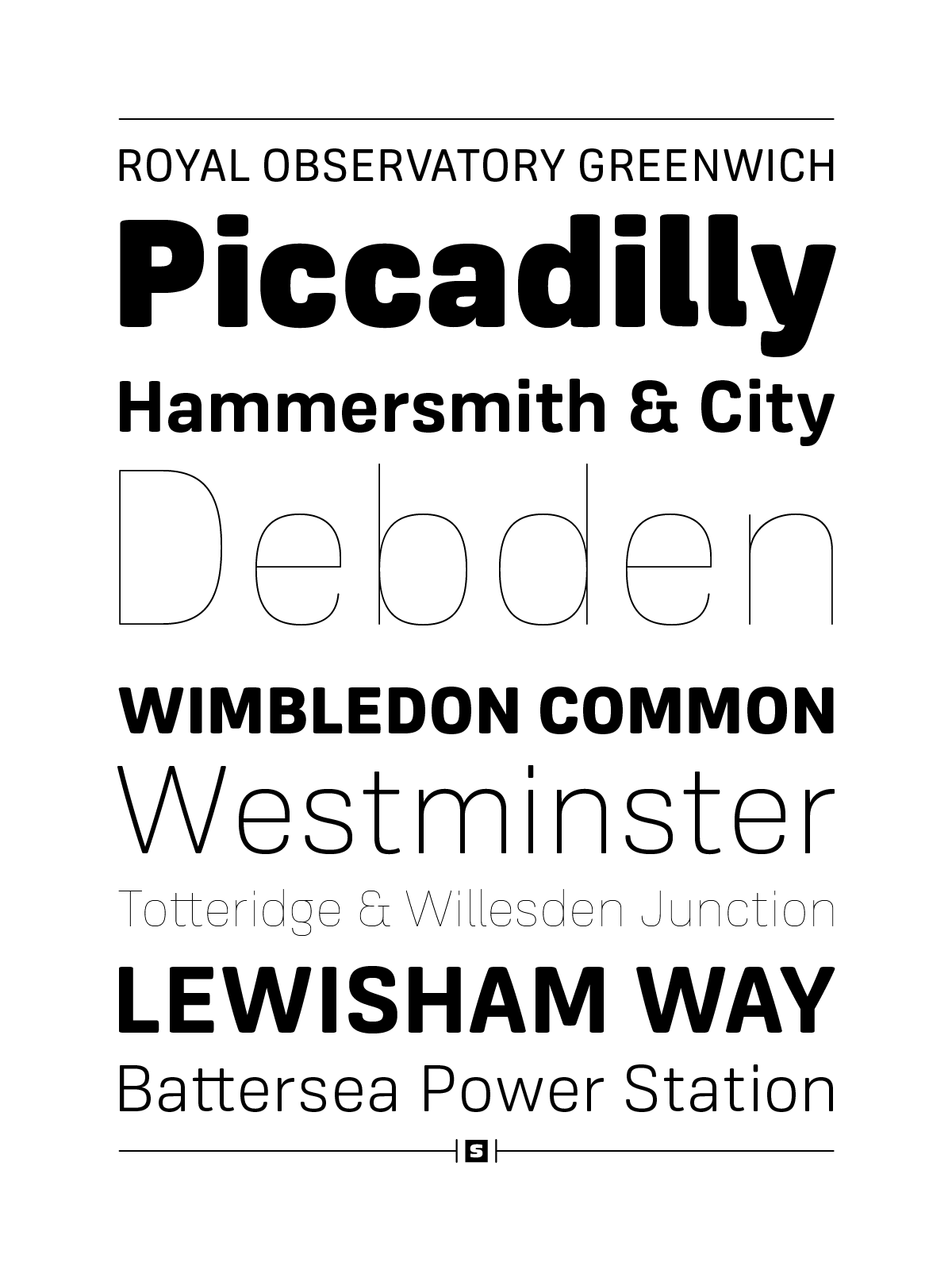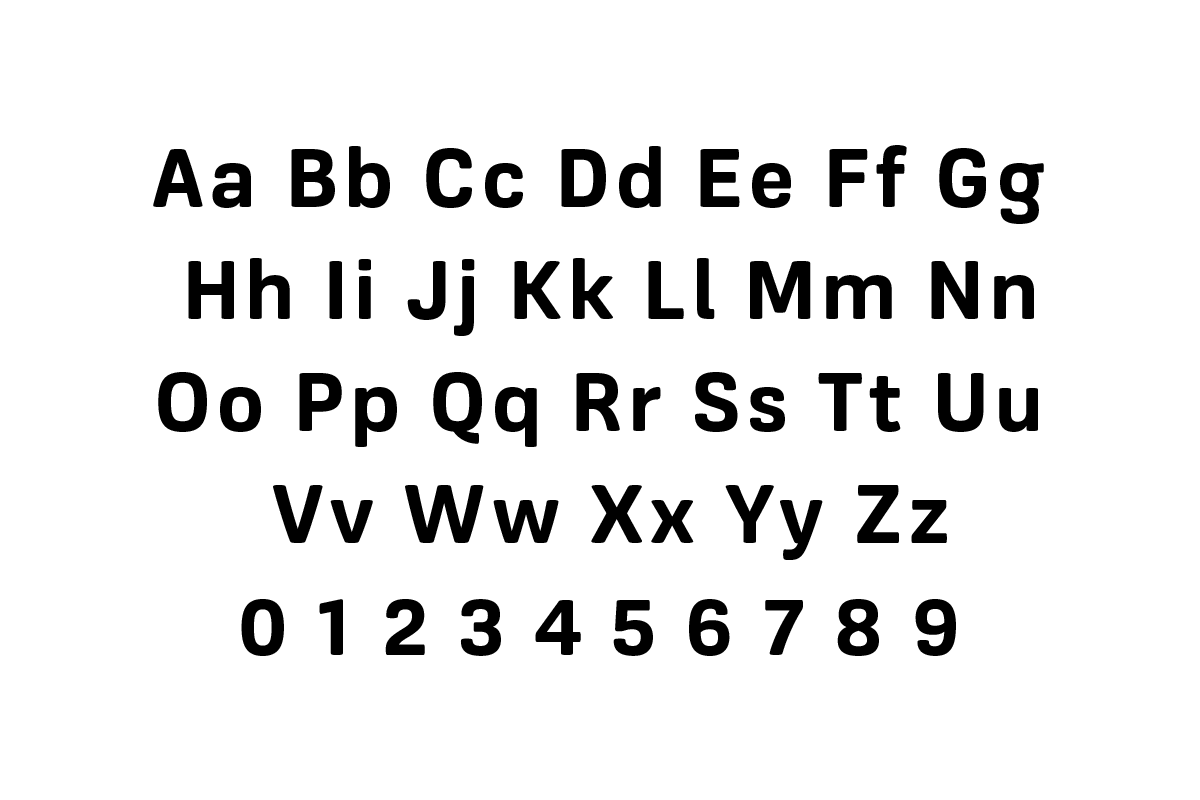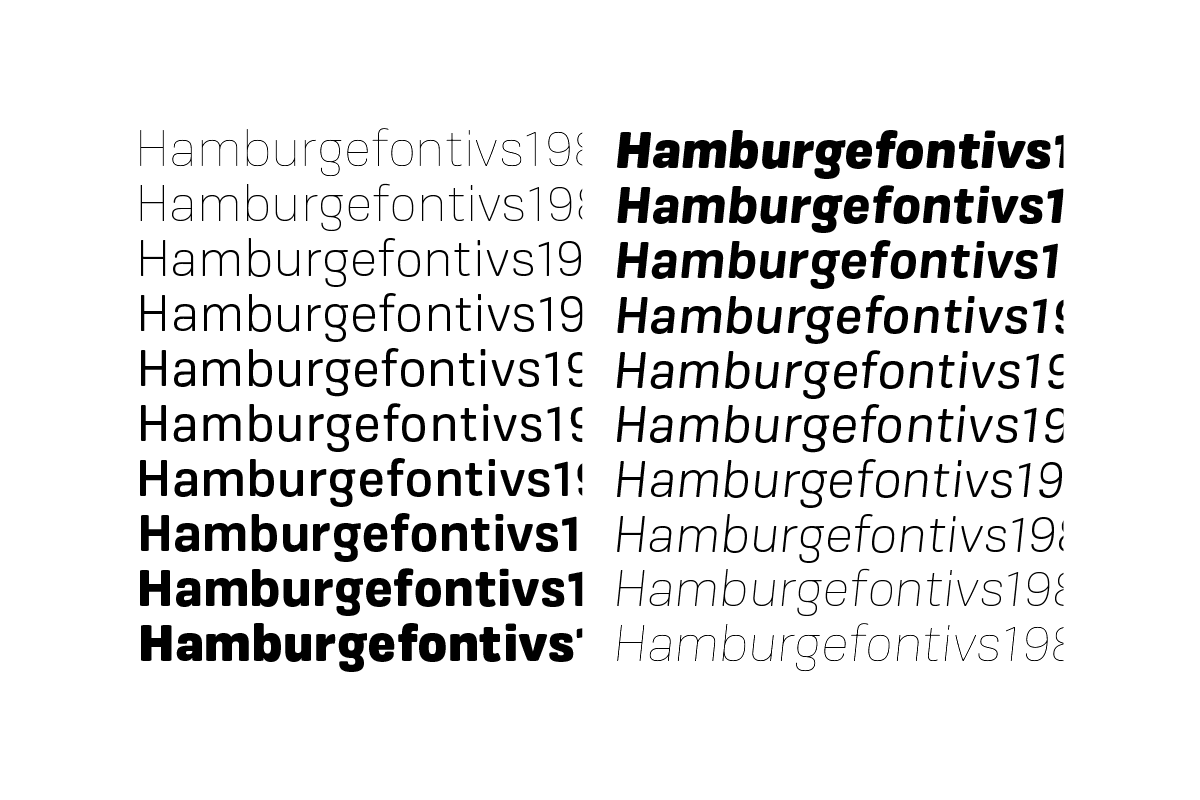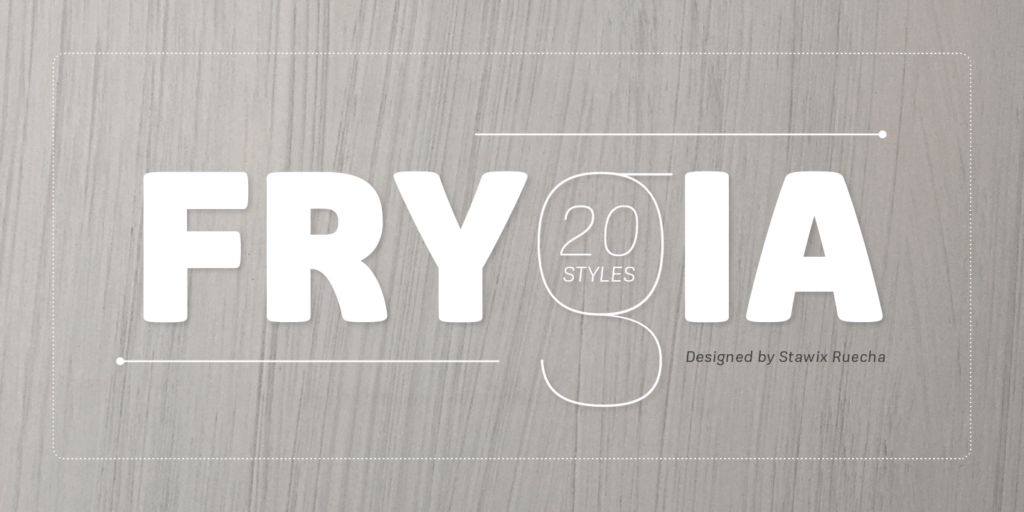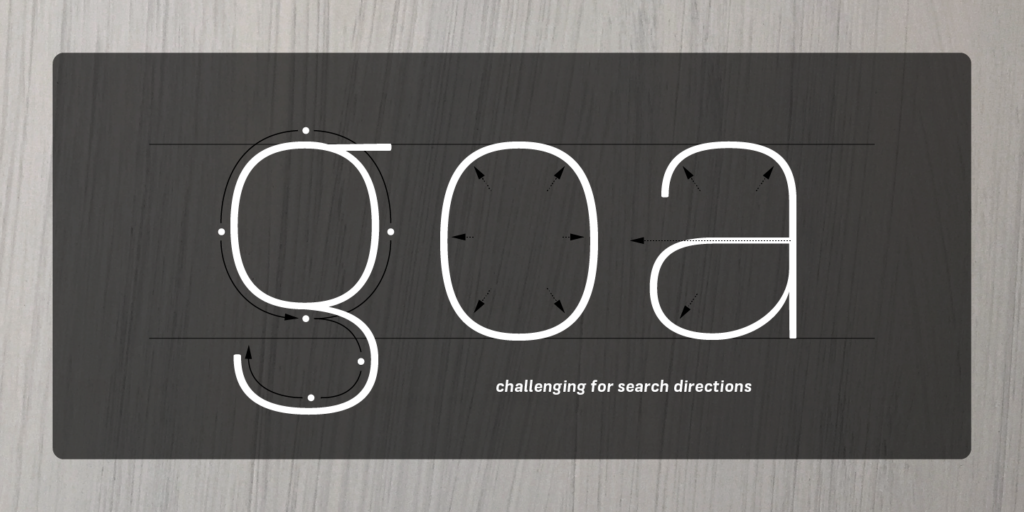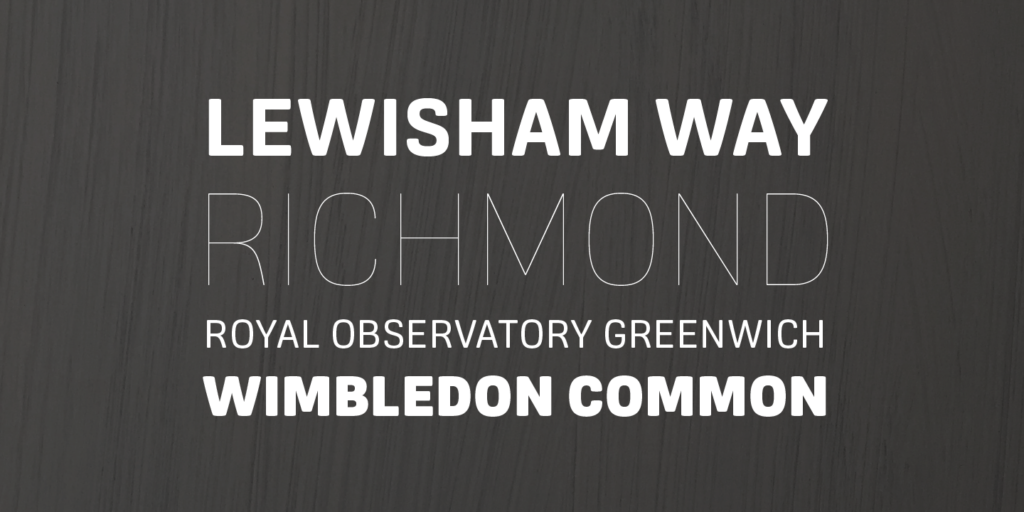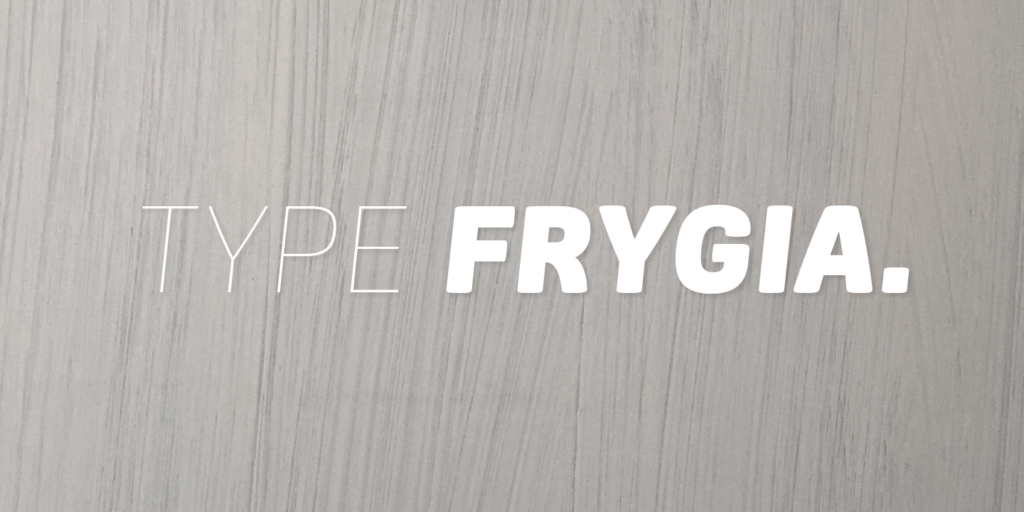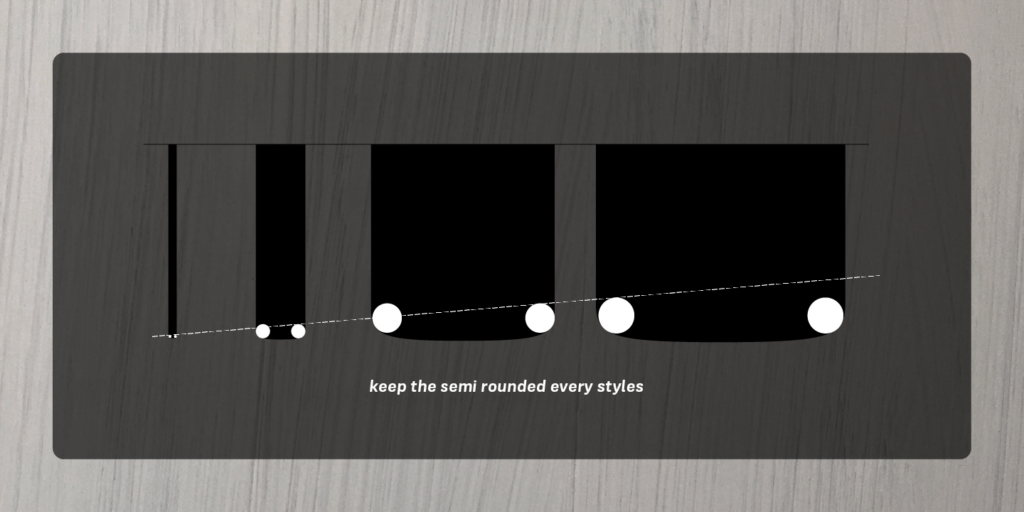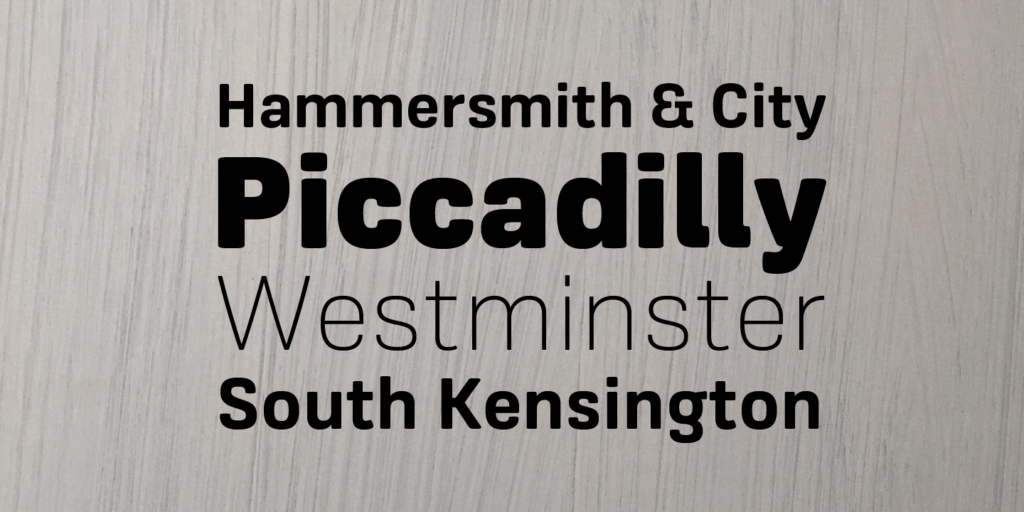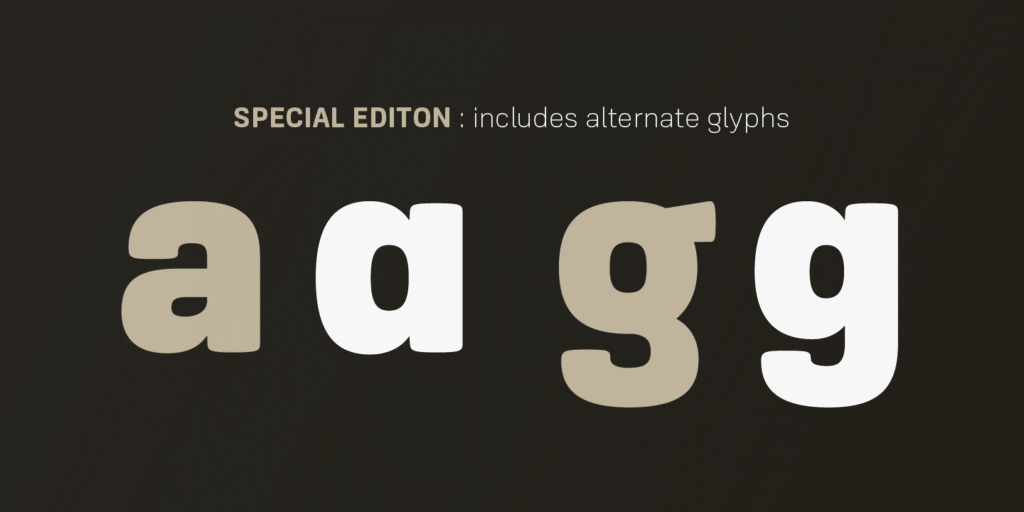
Frygia is a retail font by STAWIX Foundry, available as a Thai and Latin typeface for branding, digital use, variable font workflows, and contemporary แบบอักษรไทย licensing.
Inspired by astonishing mythology, engineered for the modern layout.
Designer
Stawix Ruecha
OpenType Features
About
Frygia is inspired by the astonishing mythology along with a new method and approach of type design. As an example, the construction of the lowercase g; the line structure which is slightly curved helps to aid the optical illusion and the integration of Industrial San Serif style making Frygia extremely compatible and ready for every usage on the layout. Frygia Family consisted of 20 styles and 10 weights, ranging from the thinnest Hairline to the boldest Black and a Semi Rounded corner to suit the concept of the typeface.